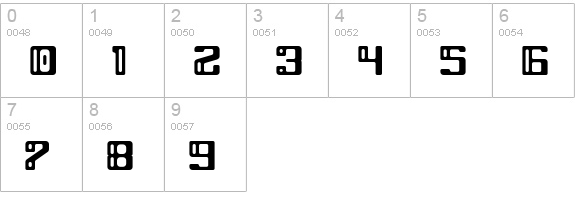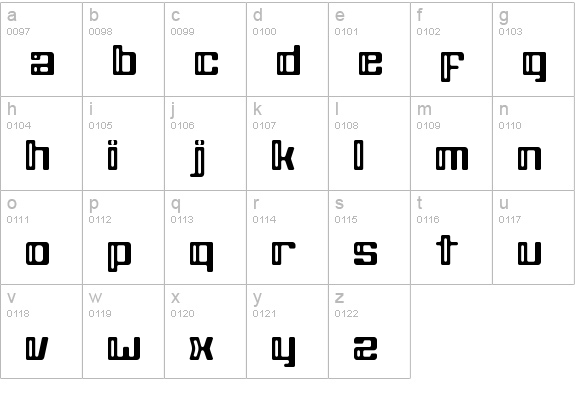
Grey Wolf Font Details
Grey Wolf font is a stunning display typeface that exudes elegance and sophistication. Its sleek lines and bold presence make it perfect for a wide range of design projects, from logos to branding to packaging. This versatile font is sure to make your text stand out with its modern yet timeless appeal. Best of all, Grey Wolf font is completely free to download at FontsMarket.com. This means you can add this beautiful typeface to your collection without any cost, making it a valuable addition to your design toolkit. Whether you're a professional designer or a hobbyist looking to elevate your projects, Grey Wolf font is a must-have resource that is just a click away. Download it today and unleash the power of this exquisite font in your next creative endeavor.